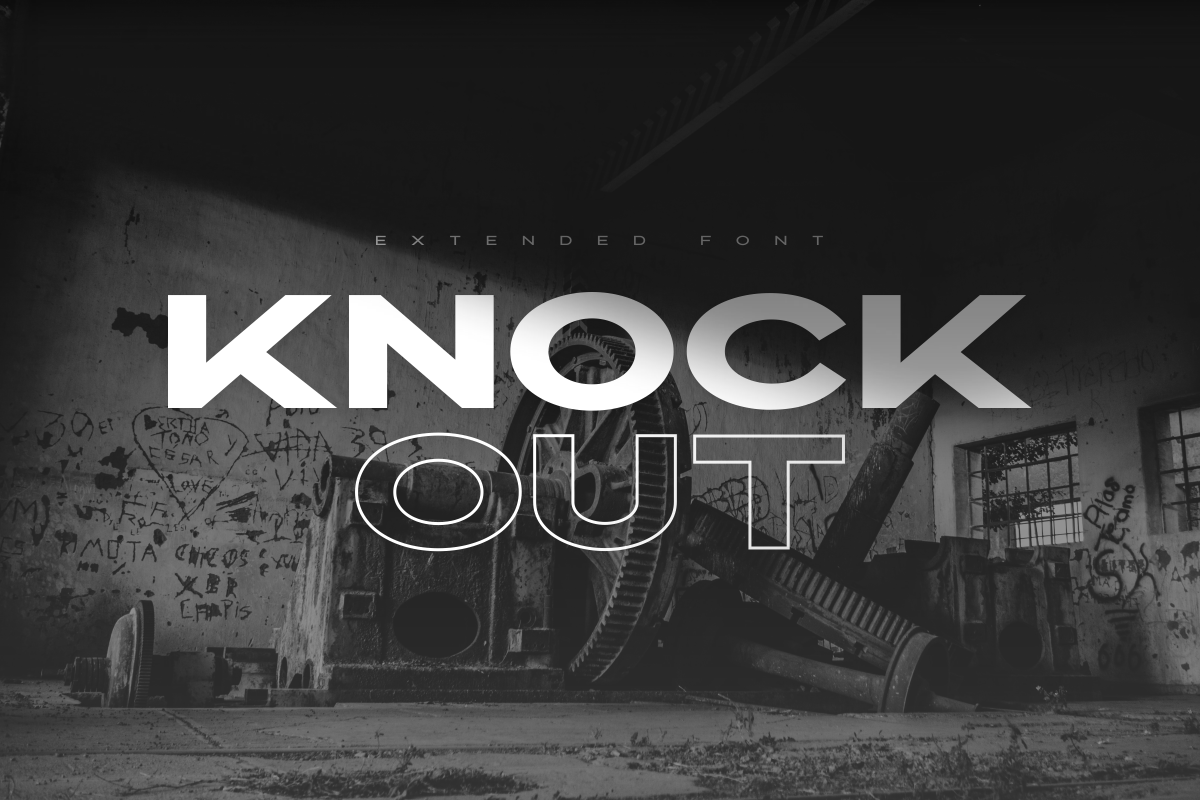
Knockout
-Geometric Extended Sans Serif Font Family
Knockout is a sophisticated geometric extended sans serif font family designed with a modern, bold, and distinctive visual style. Inspired by contemporary typography trends, this typeface combines clean geometric structures with wide letterforms to create a powerful and professional appearance.
Designed for maximum versatility, Knockout provides multiple font styles that work perfectly together for creating strong typography systems. This extended font family is ideal for branding, logos, headlines, posters, sports designs, technology projects, and modern editorial layouts.
With its bold proportions and futuristic character, Knockout helps designers create impactful visual identities that require a confident and unique typographic style.